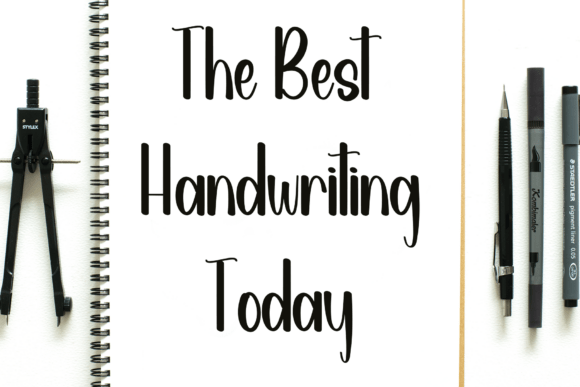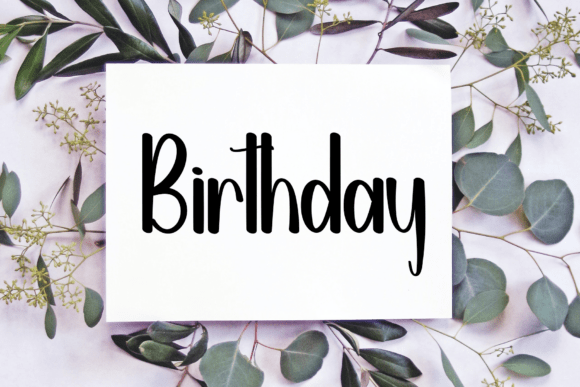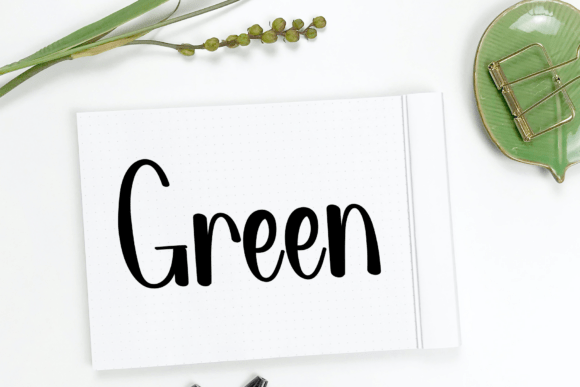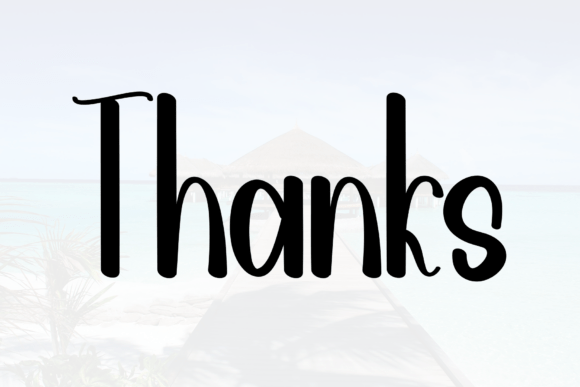
Introduction to Nobody Bold Font
There’s nothing quite like the thrill of discovering a new design resource that sparks creativity and sets your imagination ablaze. For many designers, this moment often comes when stumbling upon a unique, one-of-a-kind font that adds an extra layer of personality to a project. And for those who’ve been on the hunt for the perfect handwritten font, the discovery of Nobody Bold Font is sure to be a game-changer.
With its beautiful, flowing characters that dance along the baseline, Nobody Bold Font is a high-quality design element that’s perfect for adding a touch of warmth and coziness to any creative project. Whether you’re working on a design that requires a transparent background or a free download, this font is sure to elevate your work to new heights.
For designers, Nobody Bold Font is a valuable addition to any toolkit, offering a versatile and stylish option for a wide range of projects. From invitations to blog posts, and from social media graphics to print materials, this font is sure to bring a unique and eye-catching element to any design.
Key Features of Nobody Bold Font
- High-quality font design for creative projects, suitable as a design resource.
- Unique, bold design ideal for making a statement in creative projects and designs.
Honest Review: Nobody Bold Font
I recently had the chance to work with Nobody Bold Font on a creative project and I must say, it’s a great design resource. The font is perfect for any project that requires a bold and modern look. ✨
- High quality font with a transparent background, making it easy to work with.
- Easy to customize and pair with other fonts to create a unique look.
- ⚠️ Limited character set, which may not be suitable for projects that require a wide range of characters.
- ⚠️ Not suitable for small text sizes, as it may become difficult to read.
Overall, I’m impressed with Nobody Bold Font. It’s a great addition to any designer’s toolkit and can help take a project to the next level. With its high quality and transparent background, it’s a great choice for designers looking for a modern and bold look.
Nobody Bold Font
The Nobody Bold Font is a high-quality, free download design resource ideal for creative projects requiring a bold and eye-catching font. It features a transparent background, making it versatile for use in various design applications.
Tips for Getting the Most Out of Nobody Bold Font
To maximize the effectiveness of Nobody Bold Font, use it sparingly to create visual impact. Pair it with other high-quality design elements to create a cohesive and professional design.
The Nobody Bold Font is ideal for use in a variety of creative projects, including: branding and logo design, advertising and marketing materials, and social media graphics.
Comparison to Nobody Bold Font: Montserrat Bold Font has a more geometric and structured design compared to Nobody Bold Font’s more playful and cursive style.